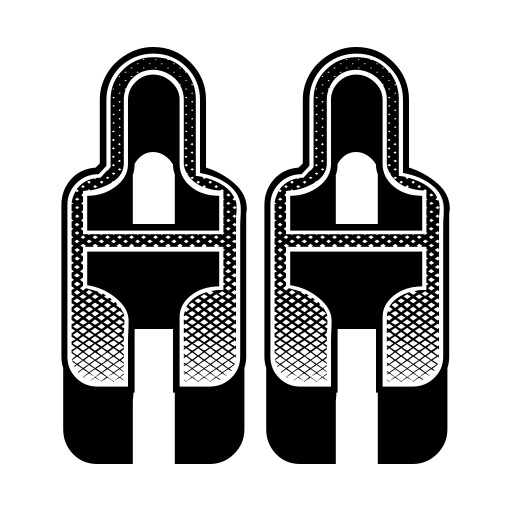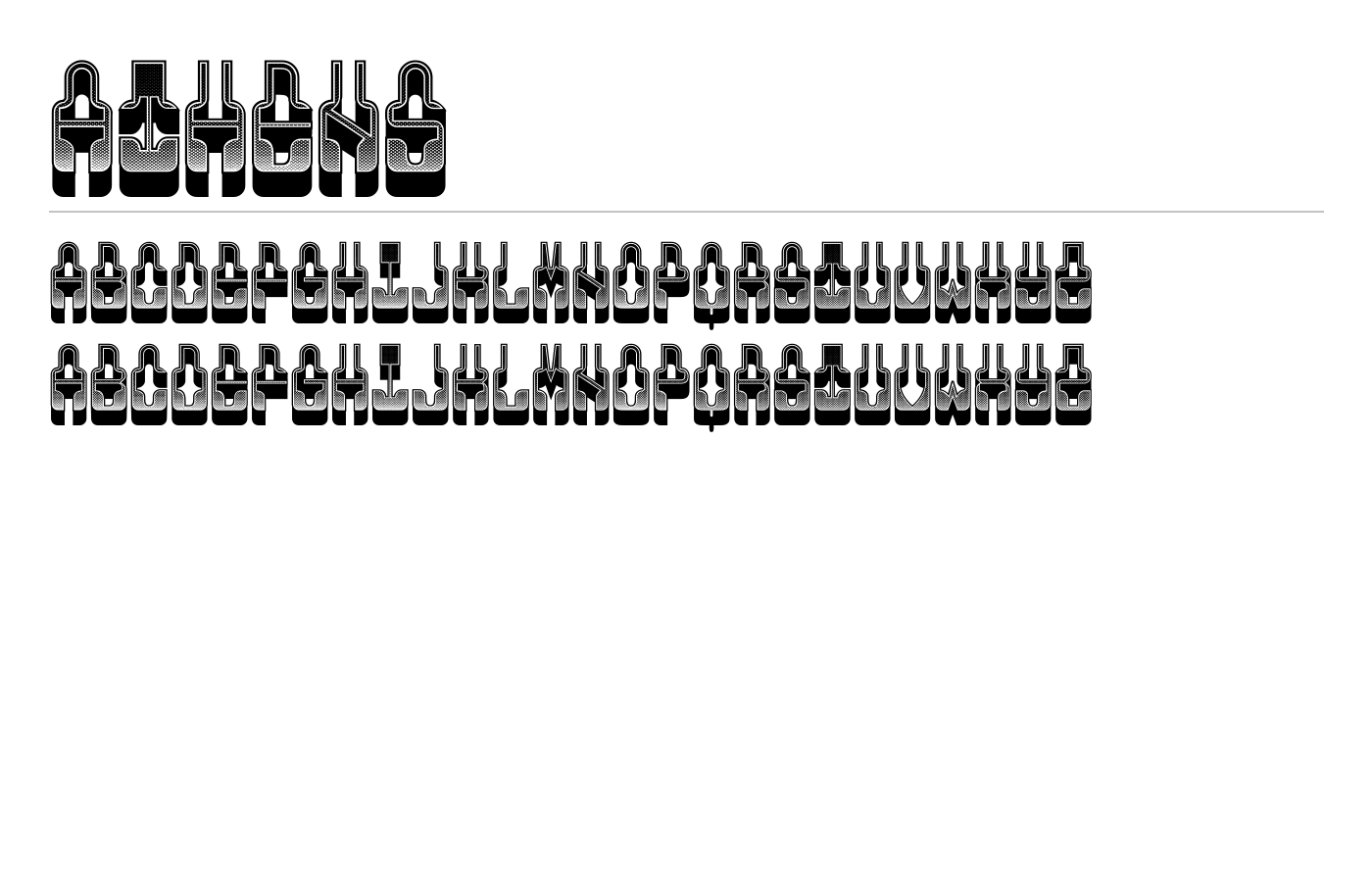
Athens Font is a bold, decorative sans-serif typeface with a striking geometric and layered design that combines solid black forms with intricate dot patterns, creating a dynamic and retro-futuristic vibe. Its heavy weight and compact structure make it ideal for eye-catching headings, logos, and posters where a unique, vintage-inspired yet modern style is desired. This font works best in display contexts where its detailed, ornamental nature can shine and give a strong visual impact.
Athens Font